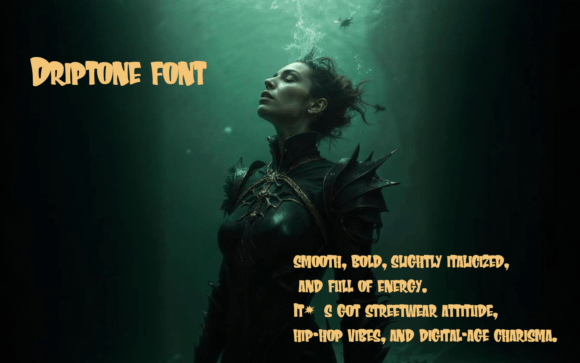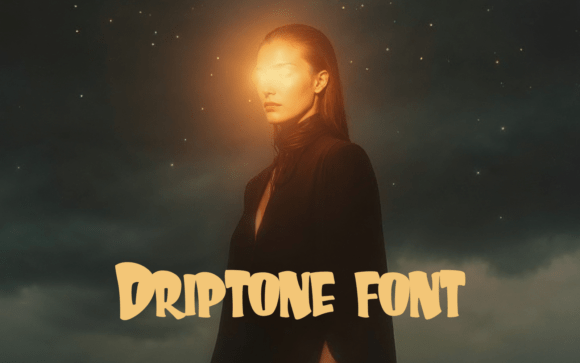
Driptone Font
About the Driptone Font
The Driptone Font offers a perfect balance of form and function for your design needs. Turn the volume up with Driptone—a typeface with street in its soul and rhythm in its flow.
Slick curves, bold presence, and a digital drip made for creators on the move. From merch drops to mixtape covers, it’s the font that flexes hard.
Where attitude meets aesthetic, Driptone speaks your style loud and clear.
Driptone: Born on the coast. Built to break the feed.
Driptone excels in headlines, short text blocks, and branding applications where a bold, confident statement is needed. It’s ideal for logos, posters, and packaging designs targeting a youthful, urban audience. Avoid using it for body text or lengthy paragraphs; its strong character reduces readability at smaller sizes.
The font’s core personality is energetic and rebellious, with a modern edge. It projects a sense of dynamism and street-smart coolness. Consider pairing Driptone with a clean sans-serif like Montserrat for contrast and readability in supporting text, or a geometric sans-serif like Futura for a more futuristic feel. A neutral serif like Garamond could offer sophisticated balance if a touch of classic elegance is required.
For maximum impact, use Driptone sparingly as a highlight element, allowing a more legible typeface to handle the bulk of the textual content. This ensures visual hierarchy and prevents overwhelming the viewer.